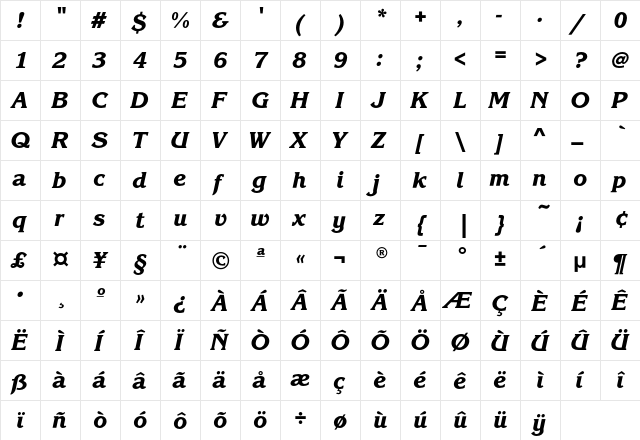
KorinnaEF-KursivExtraBold Regular Font Preview
KorinnaEF-KursivExtraBold Regular
Design Context for KorinnaEF-KursivExtraBold Typeface
KorinnaEF-KursivExtraBold is a composed and adaptable typeface that performs quietly and consistently across a wide range of design contexts. Its italic angle brings a sense of urgency and motion to the letterforms. The heavy weight commands attention and anchors typographic hierarchies.